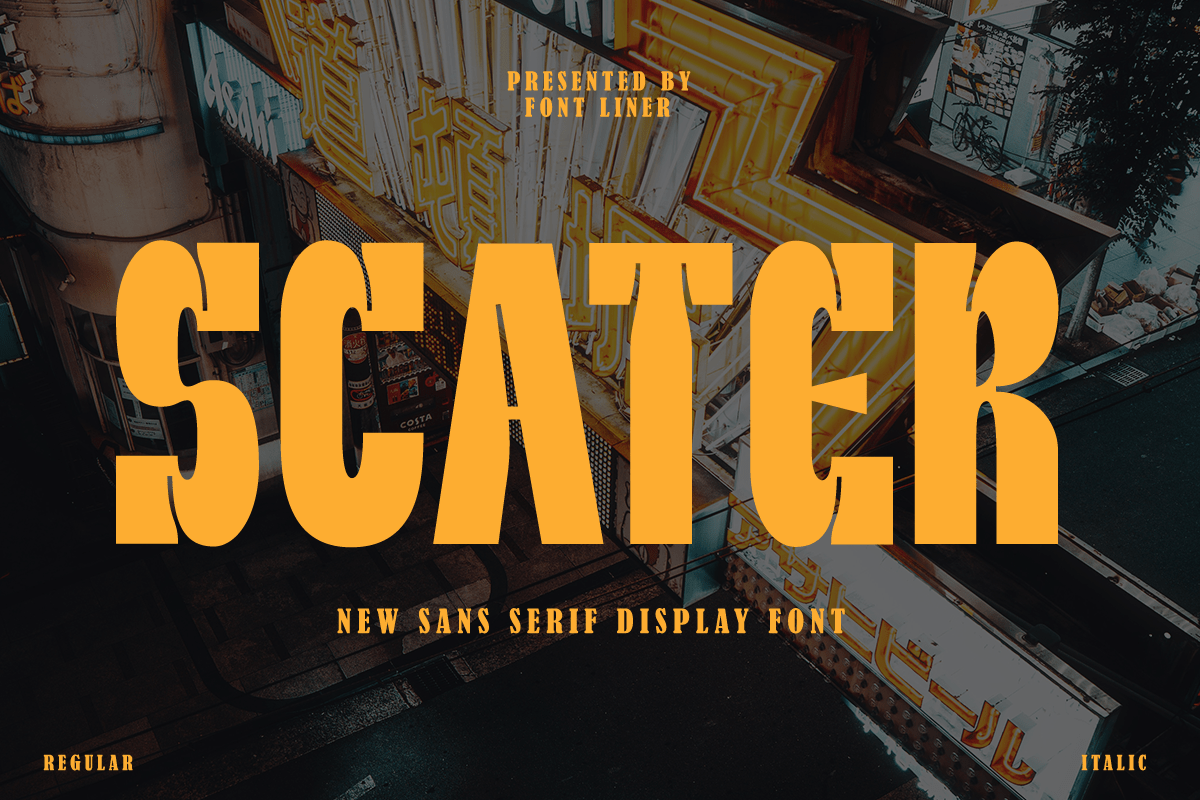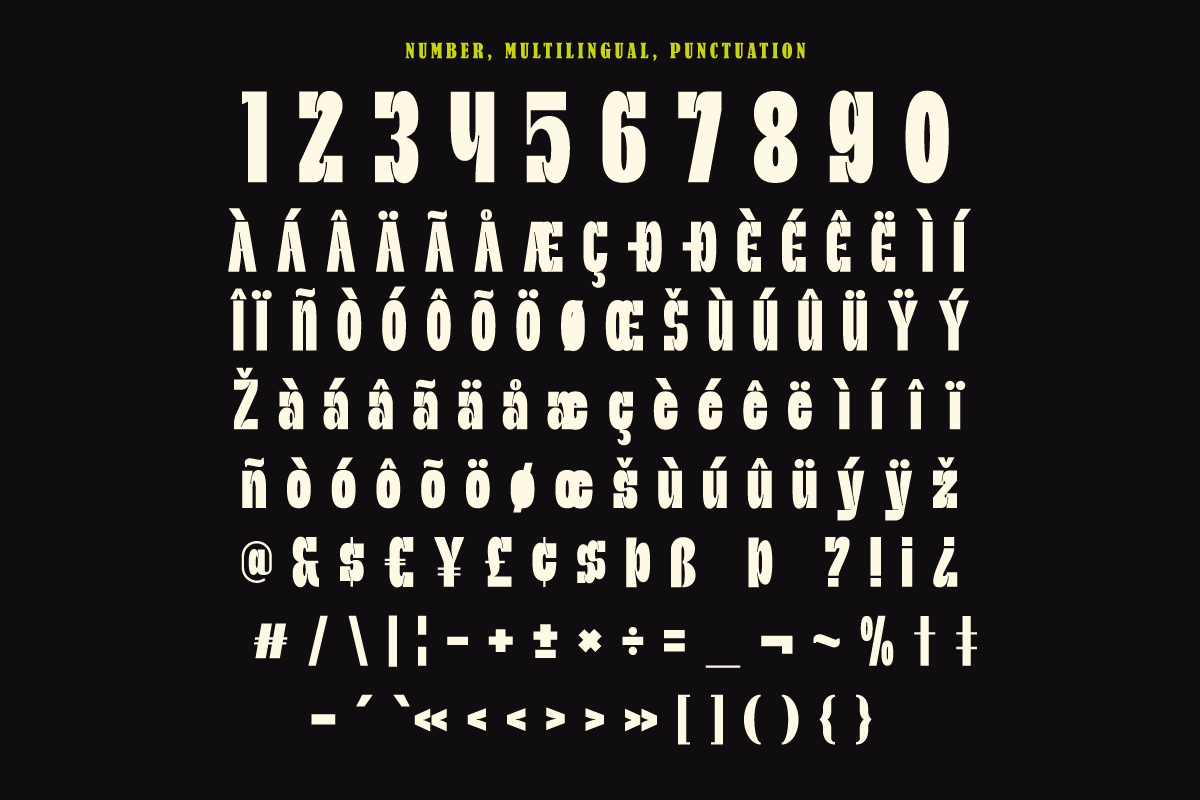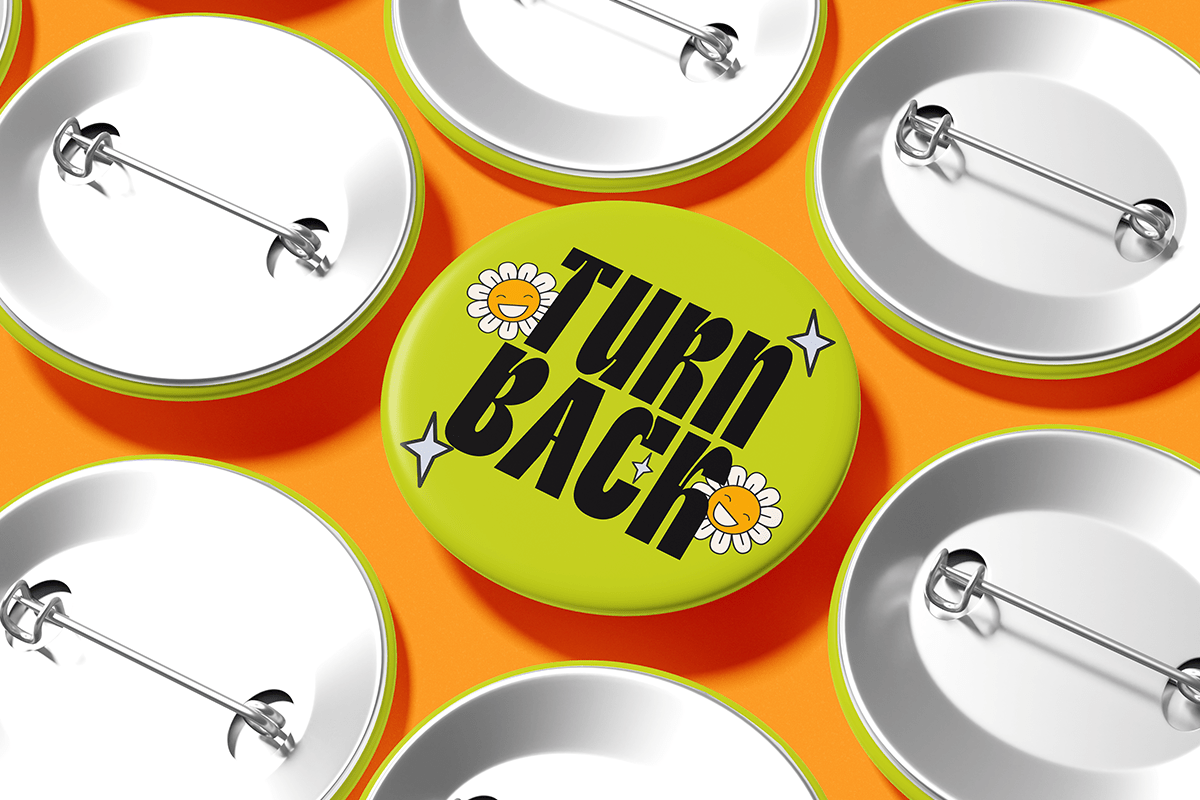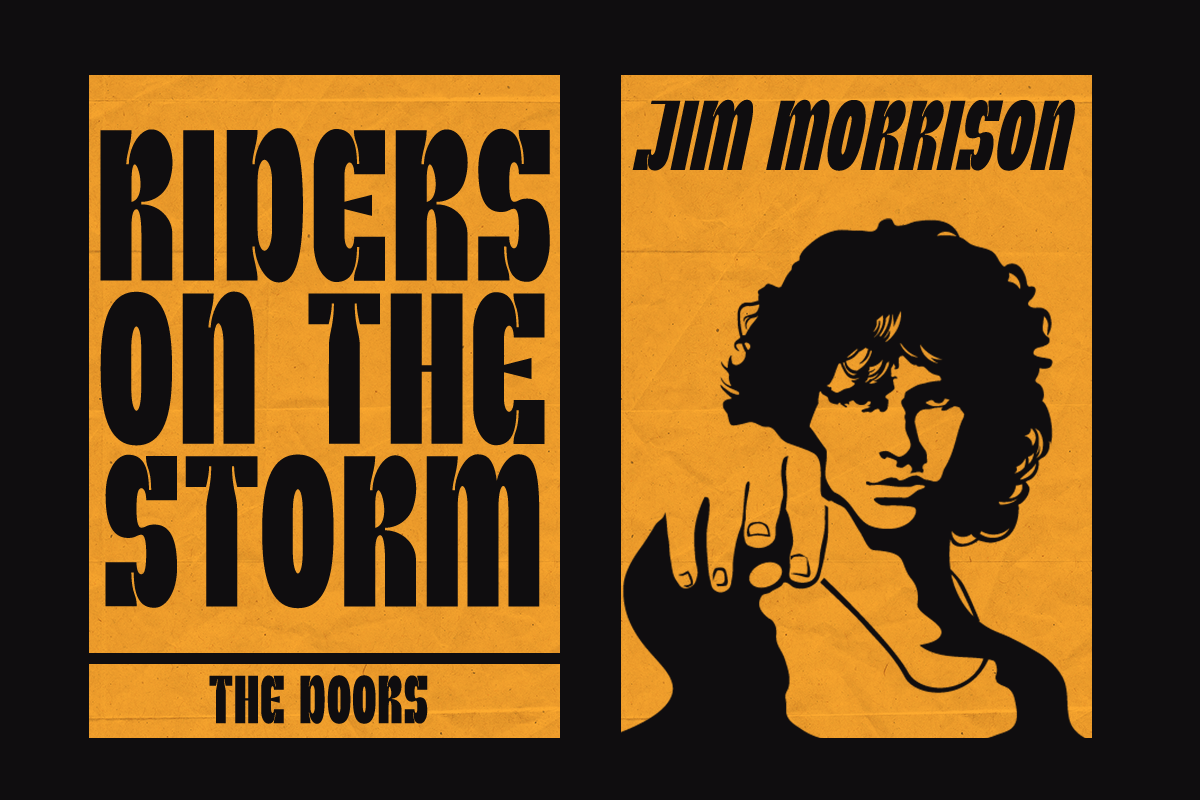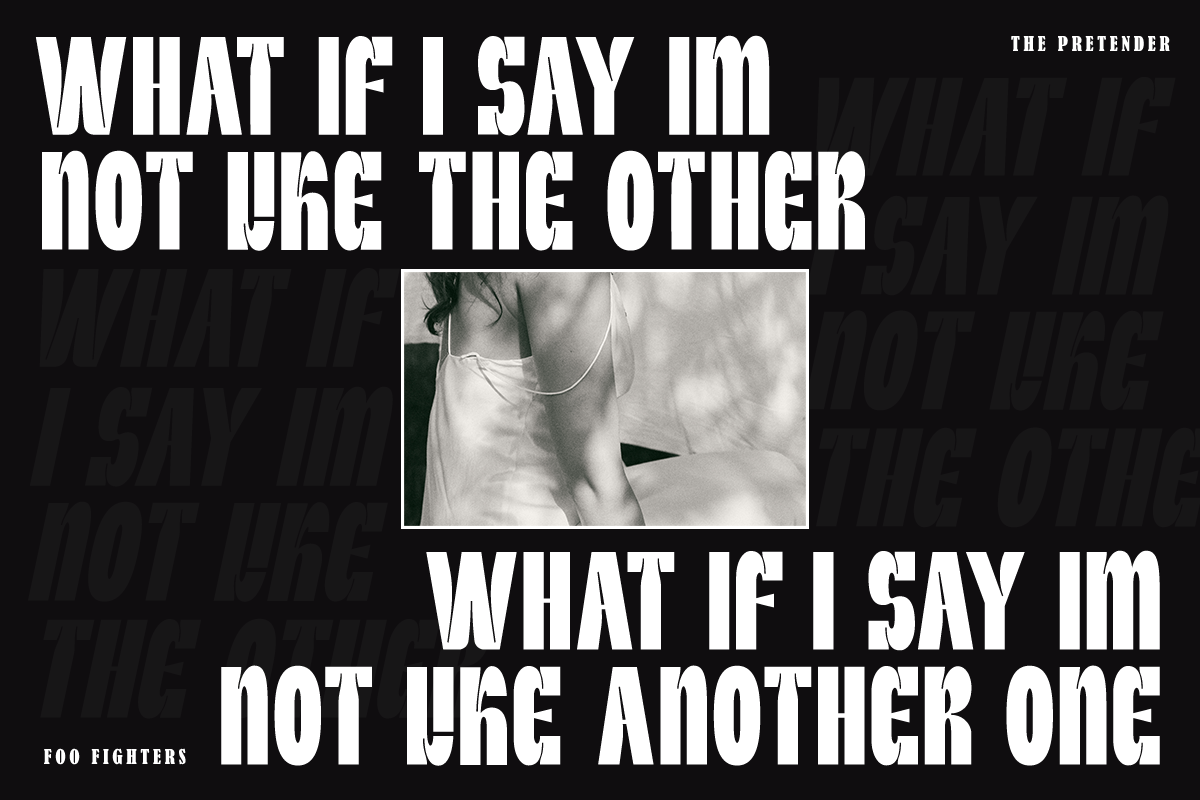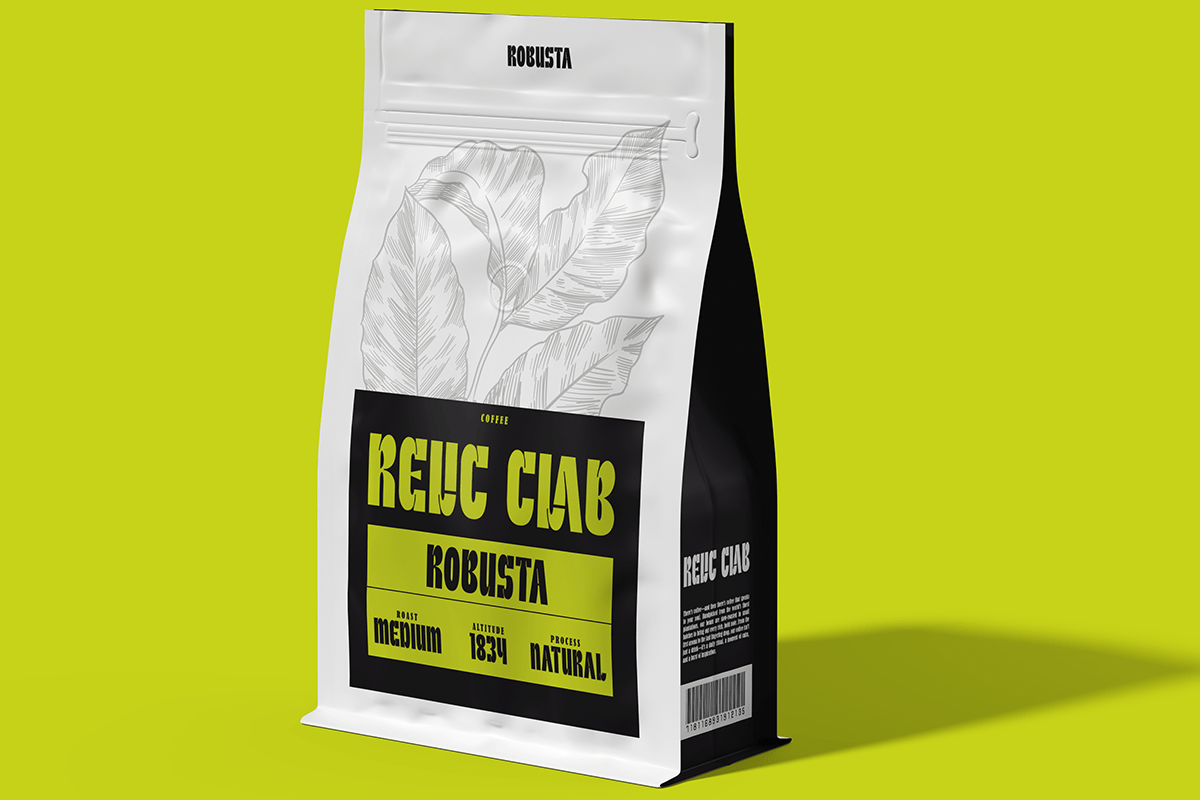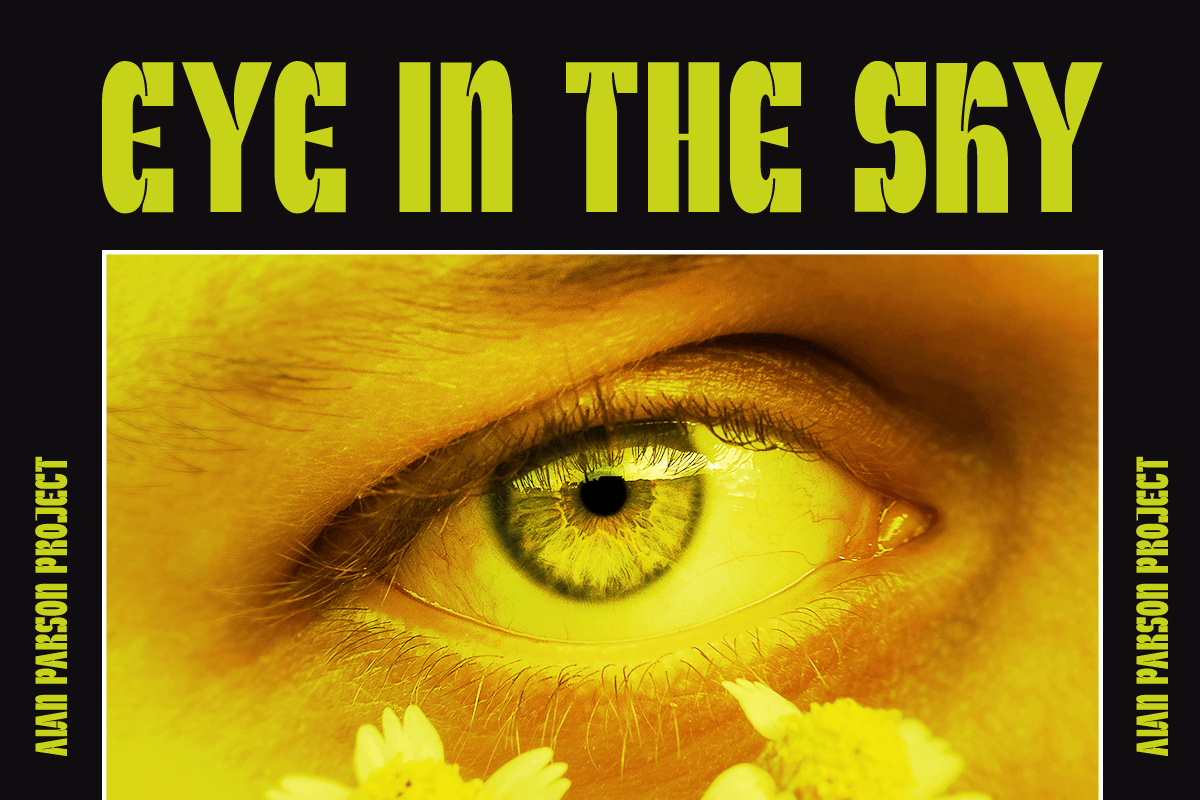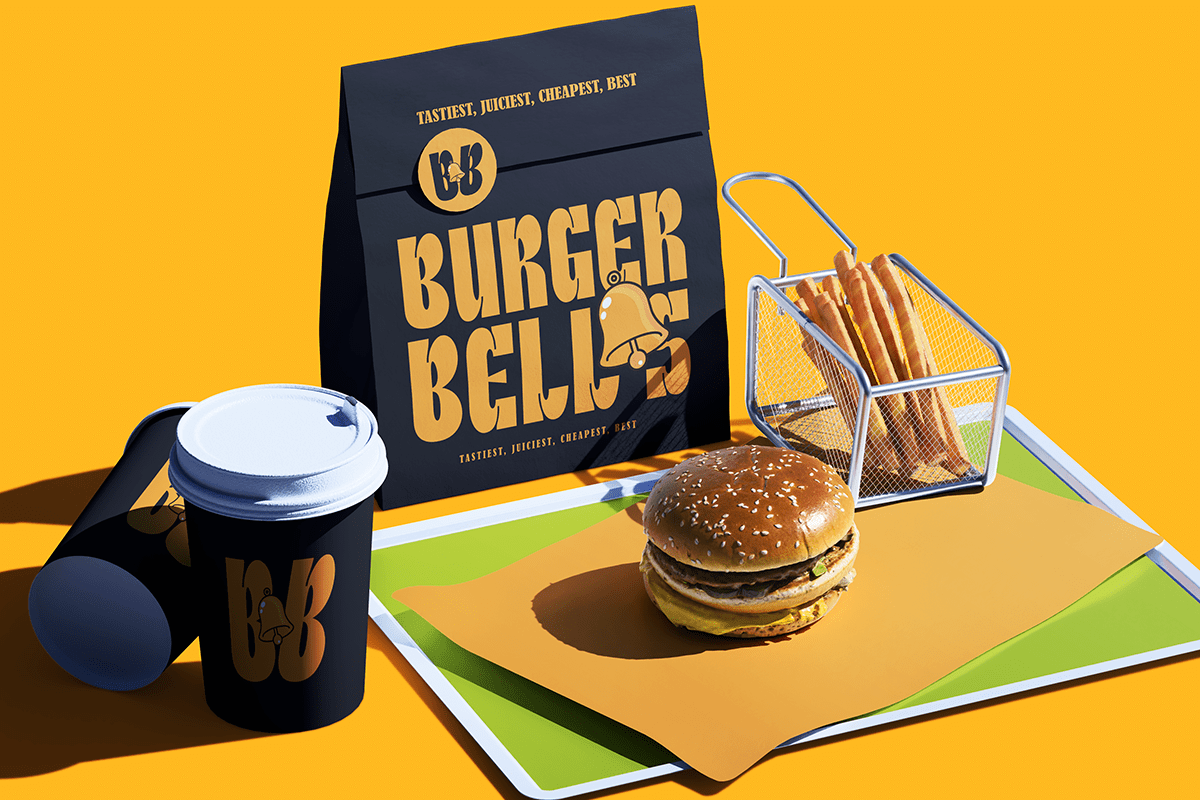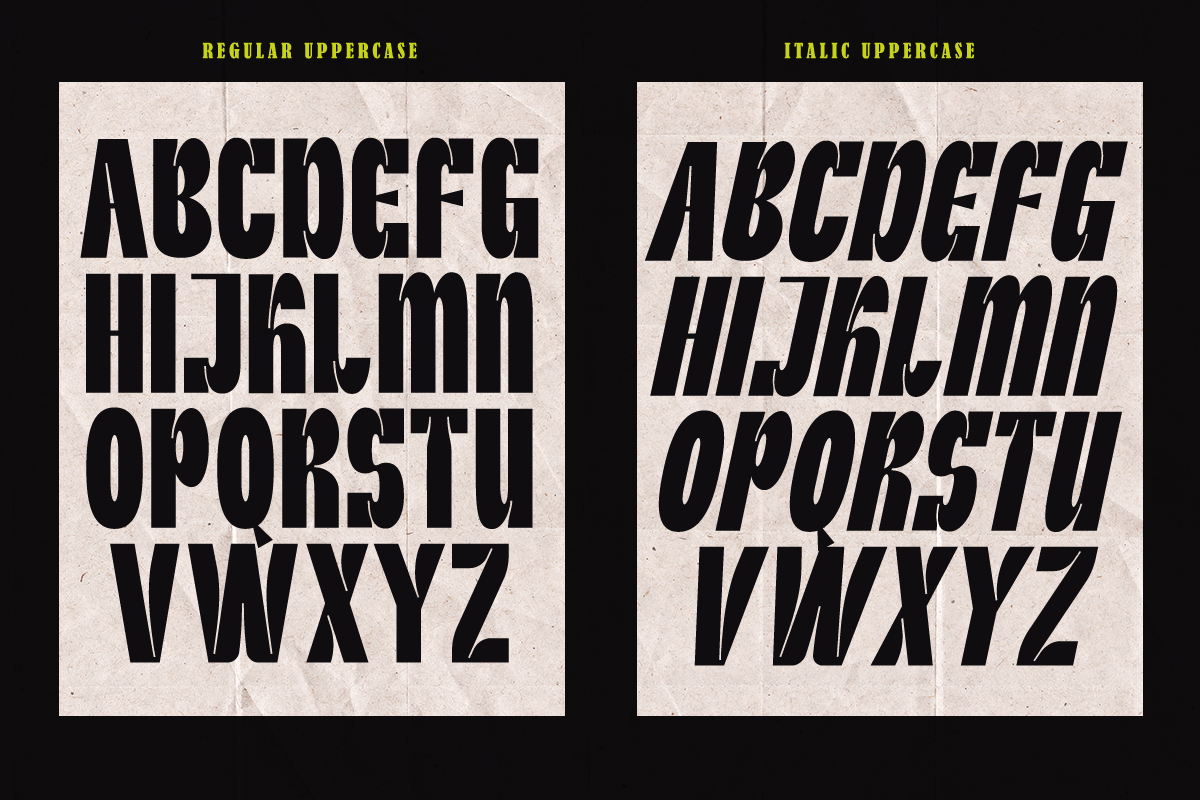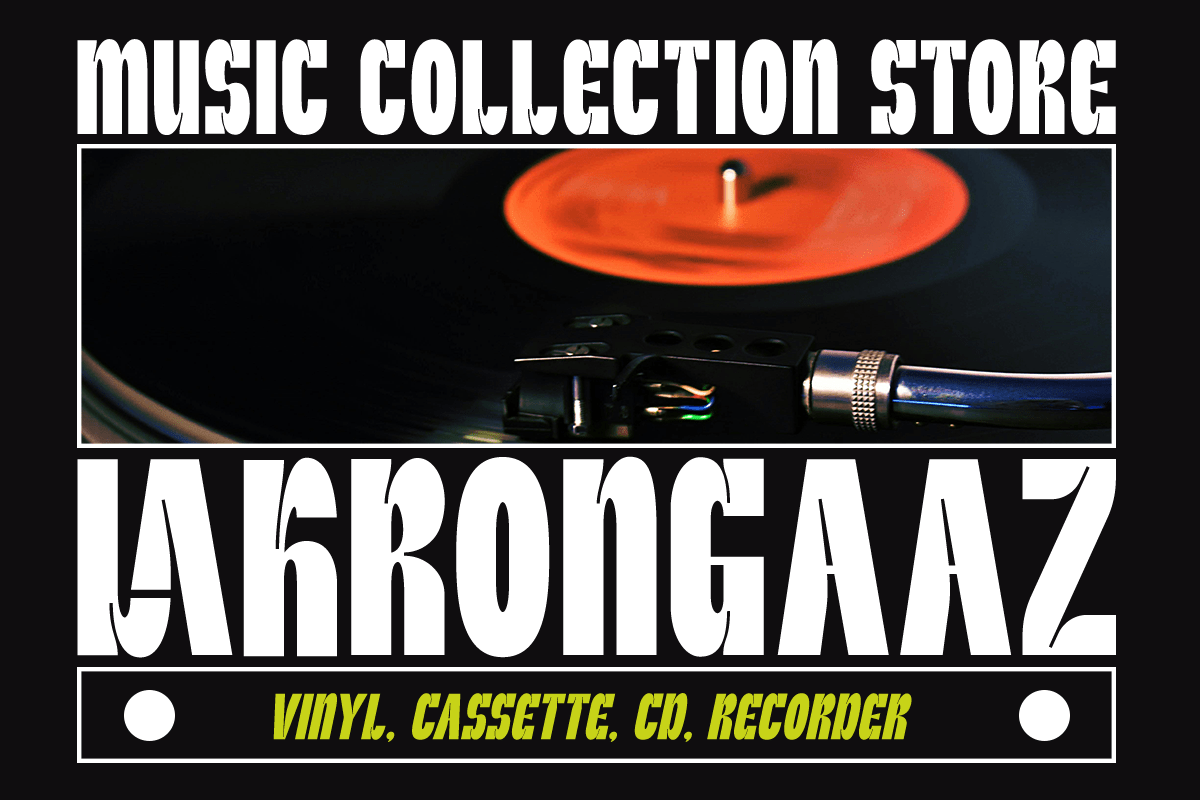
Scater – Condensed Sans Serif Display Font
Scater is a bold condensed sans serif display font designed to deliver maximum impact with minimal space. Inspired by vintage posters, industrial signage, and street culture typography, it features tall proportions, strong geometric construction, and striking letterforms that instantly command attention. Its confident personality makes Scatter the ideal choice for designers who need bold headlines with exceptional readability.
Perfect for sports branding, music posters, streetwear, fashion campaigns, product packaging, advertising, editorial layouts, magazines, merchandise, album covers, logos, social media, and promotional graphics, Scater performs exceptionally well across both print and digital media. Whether you’re creating bold visual identities, impactful headlines, or high-energy marketing materials, Scater adds power, attitude, and modern style to every design.
Scater includes regular and italic styles, uppercase and lowercase characters, multilingual support, numerals, punctuation, and symbols, providing complete flexibility for professional typography. From urban branding and lifestyle products to retro-inspired editorials and contemporary packaging, Scatter is the perfect condensed display font for designers seeking bold, memorable, and versatile typography.
– Stylistic alternates
– Uppercase, Lowercase & Ligatures